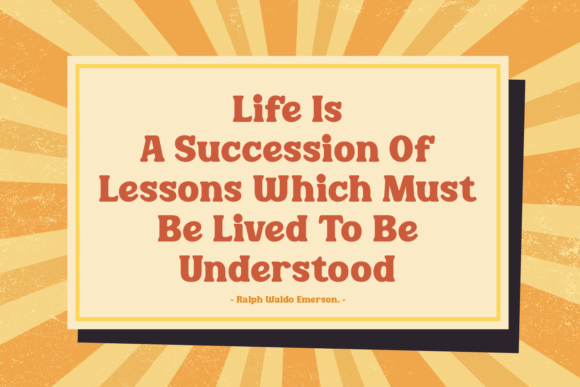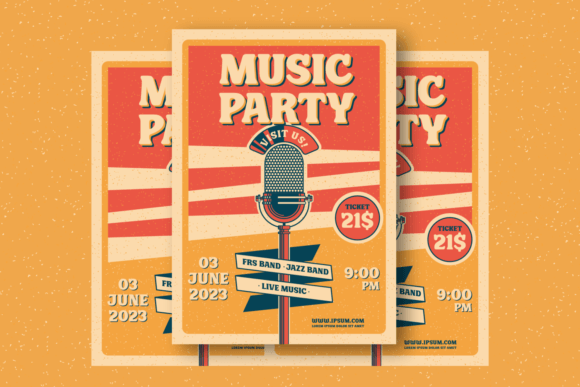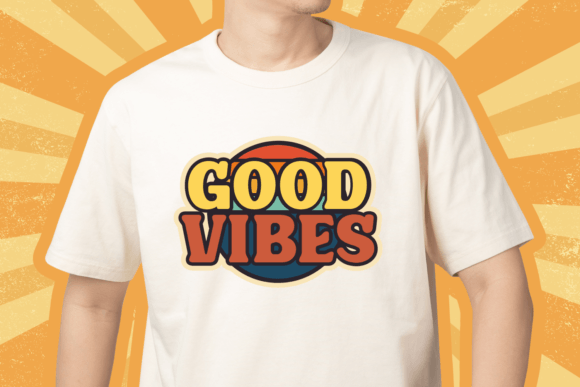
Miego Retro Font
About the Miego Retro Font
The Miego Retro Font offers a perfect balance of form and function for your design needs. Miego Retro is a thick and striking display font. Unleash your creativity and use this retro-style font to create cheerful typography for various projects. It is perfect for posters, t-shirts, cards, headlines, invitations, and more.
Miego Retro’s bold, playful personality makes it ideal for headlines, posters, and branding projects requiring a strong visual impact. Its retro styling works particularly well for projects with a vintage or 50s/60s aesthetic, but its strong forms also lend themselves to more modern applications where a touch of nostalgic charm is desired. Avoid using it for body text or lengthy paragraphs; its thickness can hinder readability at smaller sizes.
Pairing Miego Retro with a clean sans-serif like Open Sans for body copy creates a balanced contrast, allowing the display font to shine. For a more playful feel, consider pairing it with a rounded geometric sans-serif, and for a sophisticated retro vibe, a delicate serif font like Garamond would work well.
This font is best suited for brands and projects needing a vibrant, energetic, and attention-grabbing visual identity. It is not recommended for projects requiring a refined or minimalist aesthetic.
Miego Retro Font Usage Examples
Miego Retro Font Example